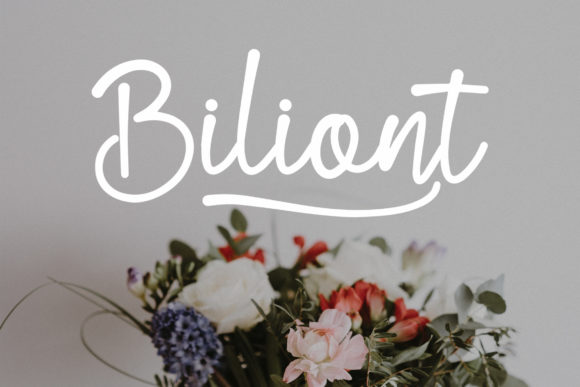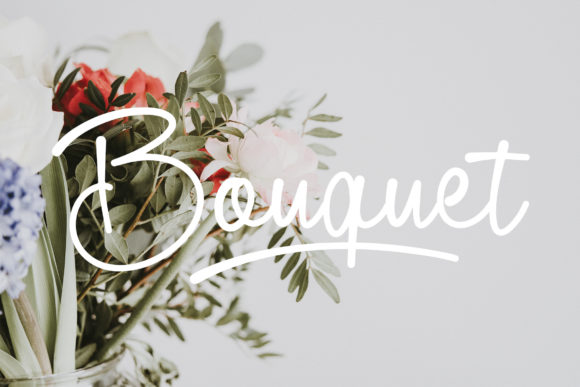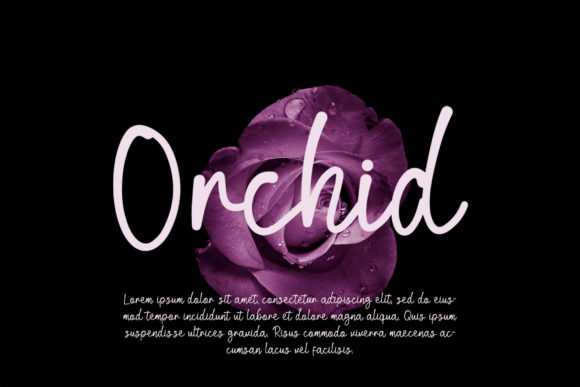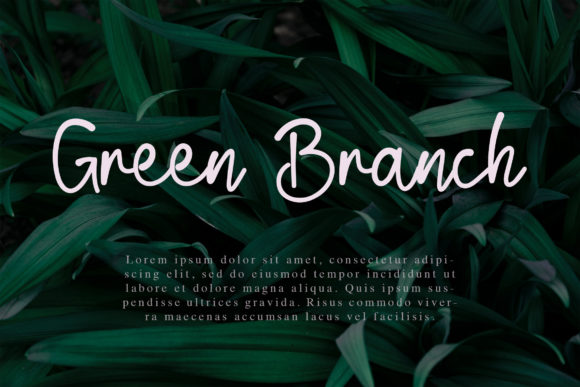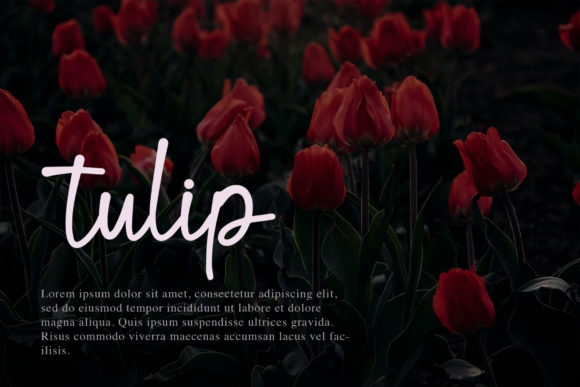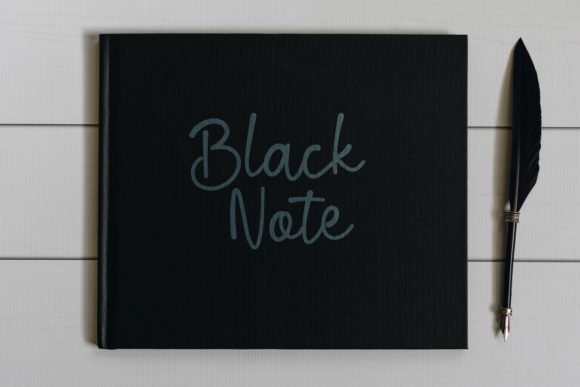
Introducing Blind Matte Script Font: Elevate Your Designs with Elegance
Are you on the hunt for a font that exudes sophistication, modernity, and a touch of casual charm? Look no further than the Blind Matte Script Font. This stunning script font is designed to bring a classy, elegant, and contemporary feel to your designs, making it perfect for a wide range of creative projects.
What is Blind Matte Script Font?
Blind Matte Script is a simple, casual, and beautiful script font that has been crafted to provide a fresh and modern look to your visual creations. Its unique blend of elegance and informality makes it an ideal choice for designers and crafters who want to add a personal touch to their work.
Key Features of Blind Matte Script Font
- Classy and Elegant: Blind Matte Script Font boasts a sophisticated and refined aesthetic that is sure to elevate your designs.
- Modern Look: Its contemporary style ensures that your creations will look fresh and up-to-date.
- Versatile: This font can be used for a variety of projects, including logos, branding, invitations, stationery, wedding designs, social media posts, and more.
- Easy to Read: Despite its elegant appearance, Blind Matte Script Font remains clear and easy to read, making it perfect for both digital and print applications.
Uses of Blind Matte Script Font
The versatility of Blind Matte Script Font makes it suitable for a wide range of applications. Here are some ideas to get you started:
- Logos and Branding: Create a lasting impression with a unique and memorable logo that reflects your brand’s personality.
- Invitations and Stationery: Add a touch of elegance to your invitations, greeting cards, and stationery with this beautiful script font.
- Wedding Designs: Make your wedding designs truly special with Blind Matte Script Font, perfect for wedding invitations, programs, and more.
- Social Media Posts: Elevate your social media presence with stylish and engaging posts that showcase your creativity.
Why Choose Blind Matte Script Font?
With so many fonts available, why should you choose Blind Matte Script Font? Here are just a few reasons:
- Unique Style: This font offers a distinctive and stylish look that will set your designs apart from the rest.
- High-Quality: Blind Matte Script Font is crafted with attention to detail, ensuring a high-quality appearance in any design.
Tips for Using Blind Matte Script Font
To get the most out of Blind Matte Script Font, here are a few tips:
- Experiment with Colors: Try pairing the font with different colors to create unique and eye-catching combinations.
- Play with Sizes: Experiment with different font sizes to add visual interest and hierarchy to your designs.
- Combine with Other Fonts: Don’t be afraid to pair Blind Matte Script Font with other fonts to create a truly custom look.
In conclusion, Blind Matte Script Font is a versatile and stylish script font that is perfect for designers and crafters looking to add a touch of elegance and modernity to their creations. With its unique blend of simplicity, casual charm, and sophistication, this font is sure to become a staple in your design toolkit.